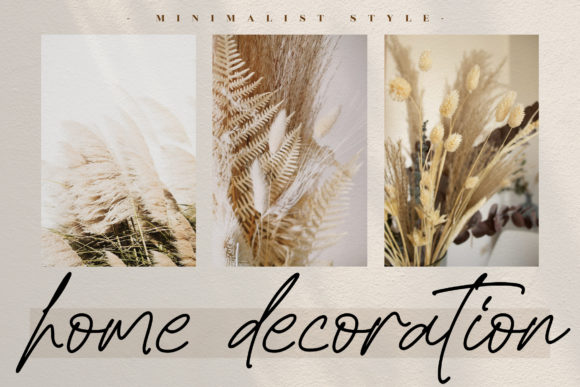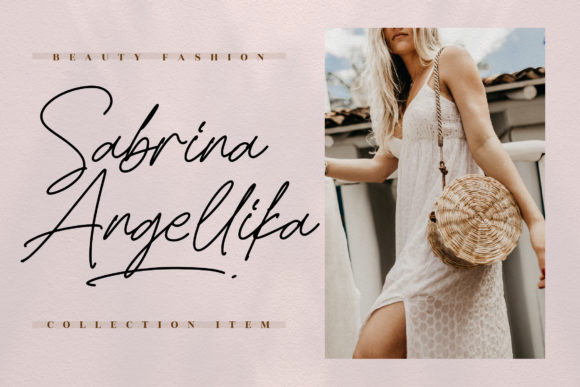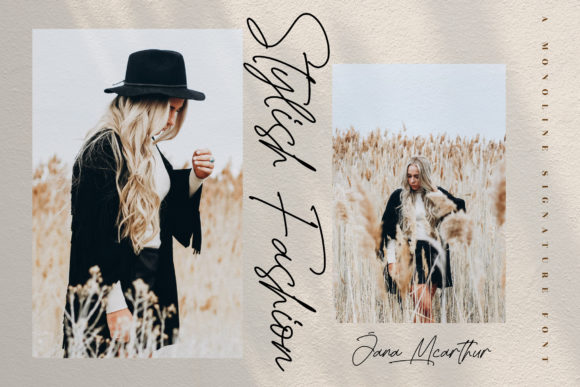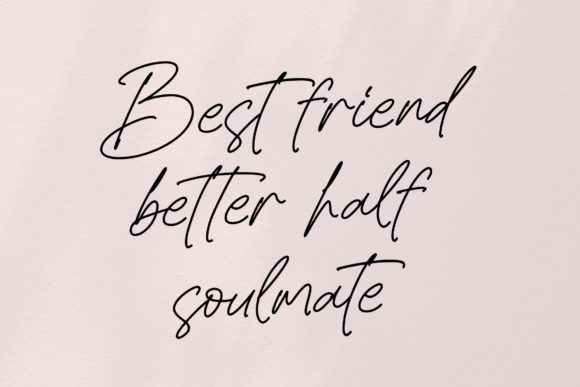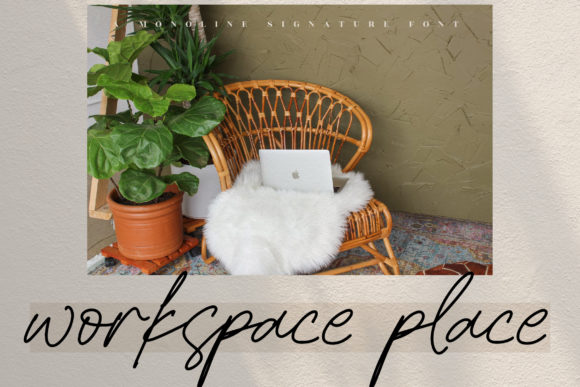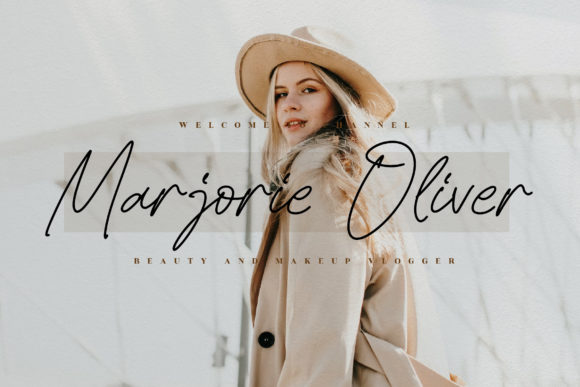
Introduction to Jasmittaj Font
As a designer, you know that the right font can make all the difference in bringing a creative project to life. And when you’re searching for that perfect font to elevate your design, it can be a tedious task. But what if you stumbled upon a font that perfectly captures the essence of your vision? For many designers, this is exactly what the Jasmittaj Font offers.
With its natural and stylish flow, the Jasmittaj Font is a valuable resource for designers looking to create high-quality designs that stand out from the crowd. Whether you’re working on a logo and branding project, designing invitations or stationery, or creating social media posts and advertisements, this font is sure to impress.
One of the standout features of the Jasmittaj Font is its versatility. It’s available for free download, making it an excellent choice for designers on a budget. Plus, its transparent background allows for seamless integration with any design element. As a result, the Jasmittaj Font has become a go-to design resource for many creatives.
Key Features of Jasmittaj Font
- High-quality, professional font suitable for various creative projects, including graphic design and digital art.
- Unique, modern design aesthetic that can add a touch of sophistication to any creative project.
Honest Review: Jasmittaj Font
I recently stumbled upon the Jasmittaj Font while searching for a unique design resource for my creative project. As a designer, I’m always on the lookout for high-quality fonts that can elevate my work.
Here’s what I liked about the Jasmittaj Font:
- ✨ Elegant and sophisticated design that works well for luxury brands
- ✨ Wide range of languages supported, making it a versatile font for international projects
- ⚠️ Limited customization options, which might not be ideal for designers who want to tweak the font to their liking
- ⚠️ Some users may find the font’s transparent background to be a bit too subtle, especially when used on busy backgrounds
Overall, I’m impressed with the Jasmittaj Font’s design and versatility. While it may not be perfect for every project, it’s definitely a valuable addition to any designer’s toolkit. If you’re looking for a high-quality font for your creative project, I’d definitely recommend checking it out.
Tips for Getting the Most Out of Jasmittaj Font
For the best results, use Jasmittaj Font in conjunction with a clear and simple design. Experiment with different font sizes and colors to create a visually appealing effect. You can also use the font in combination with other design elements to create a unique and creative project.
Jasmittaj Font is ideal for use in business presentations, marketing materials, and creative projects. Its high-quality design and transparent background make it perfect for use in digital graphics and print materials.